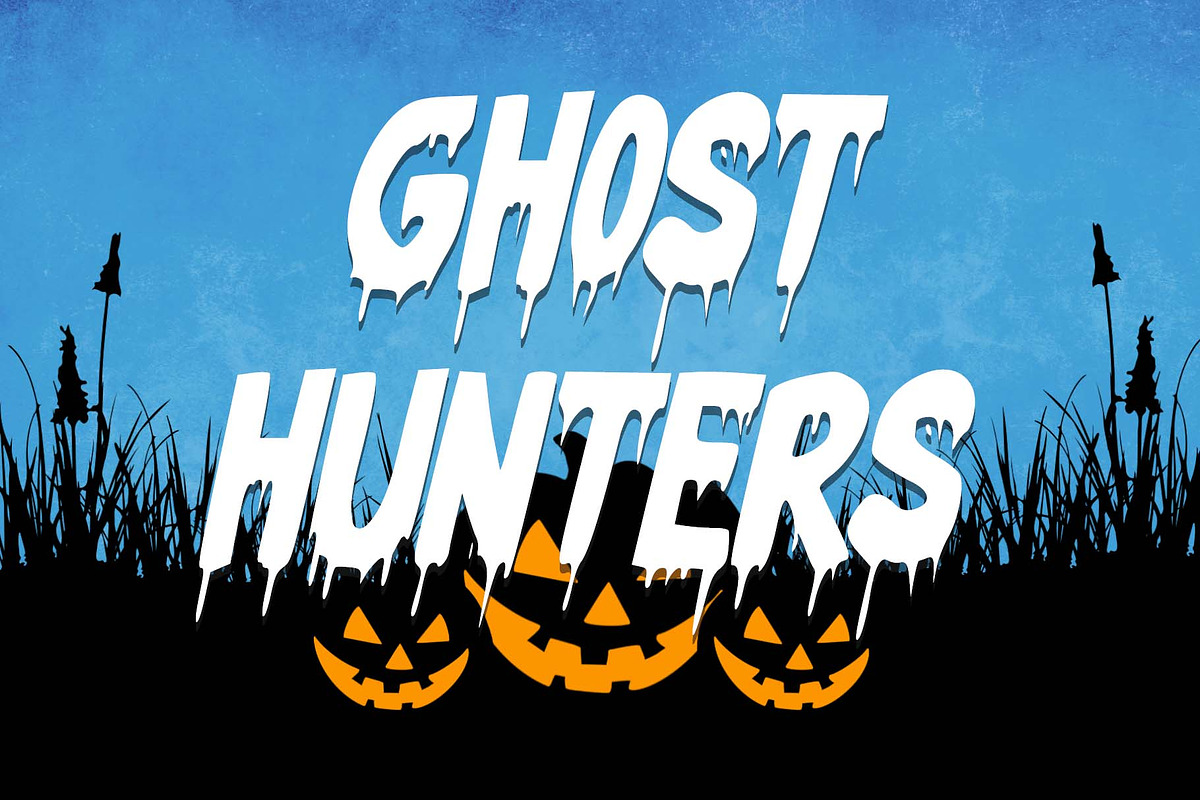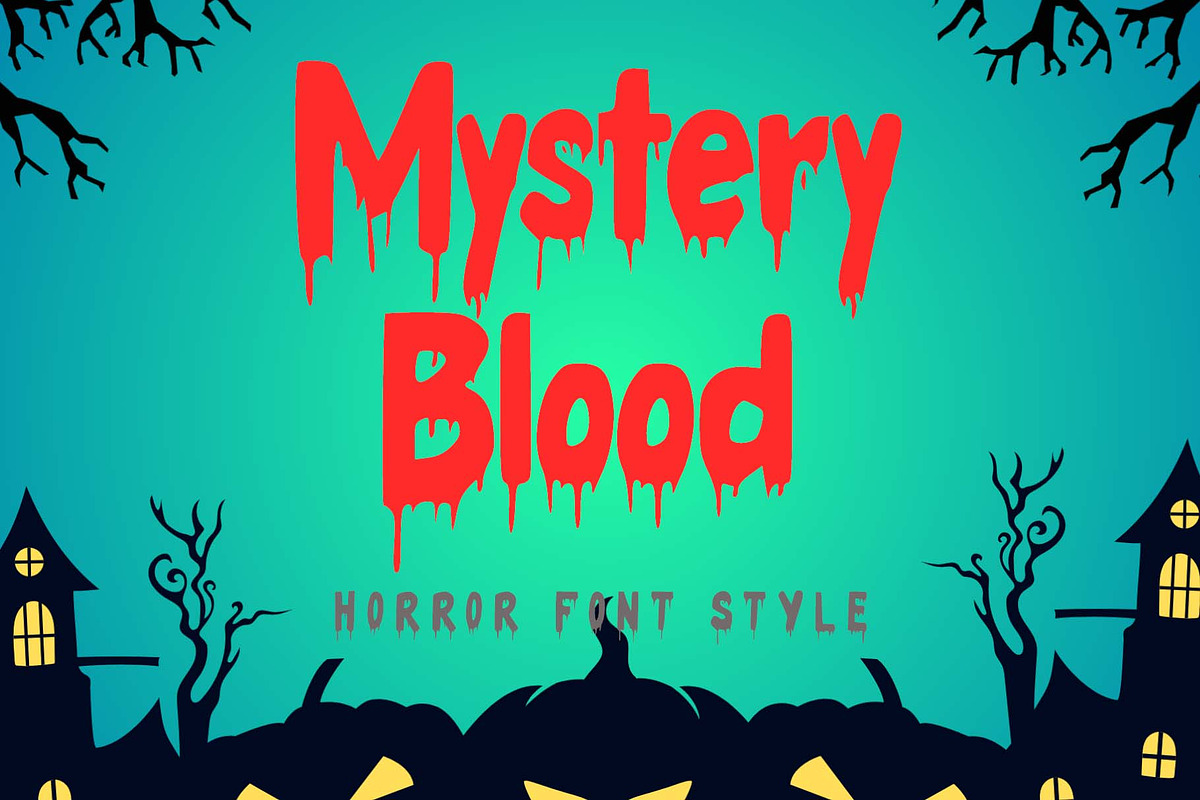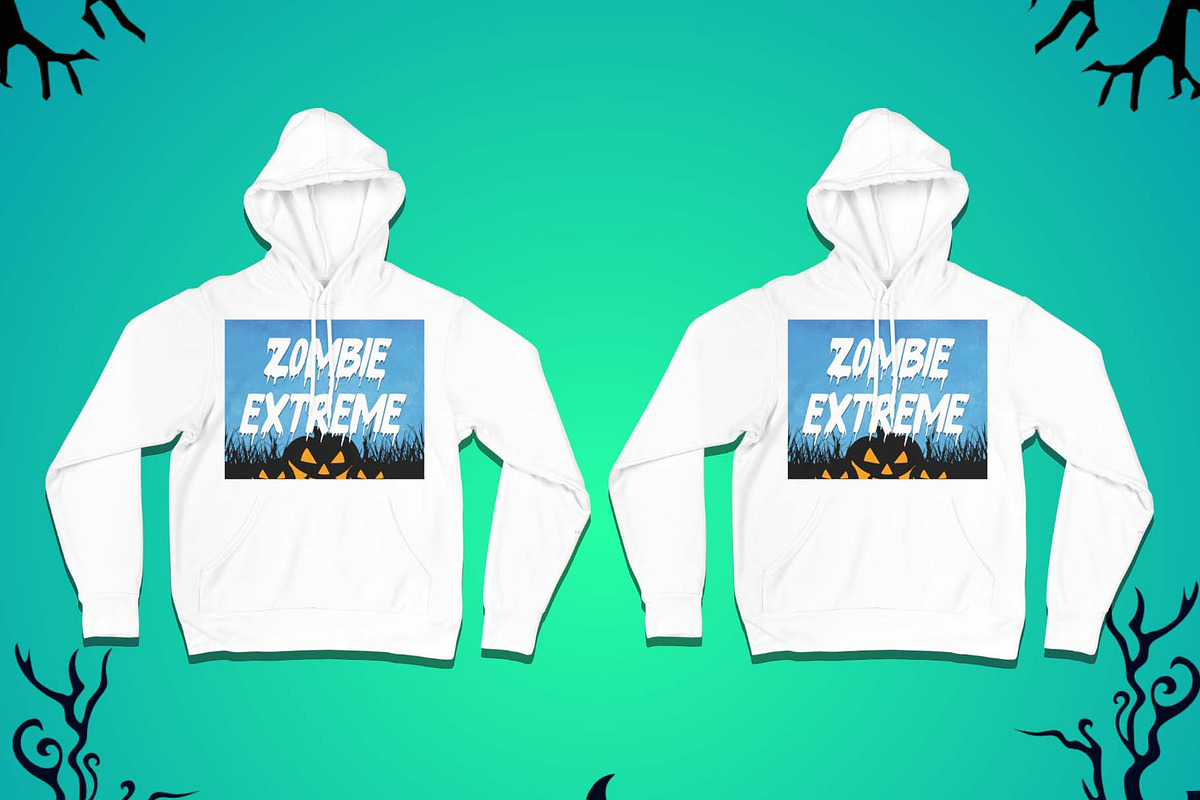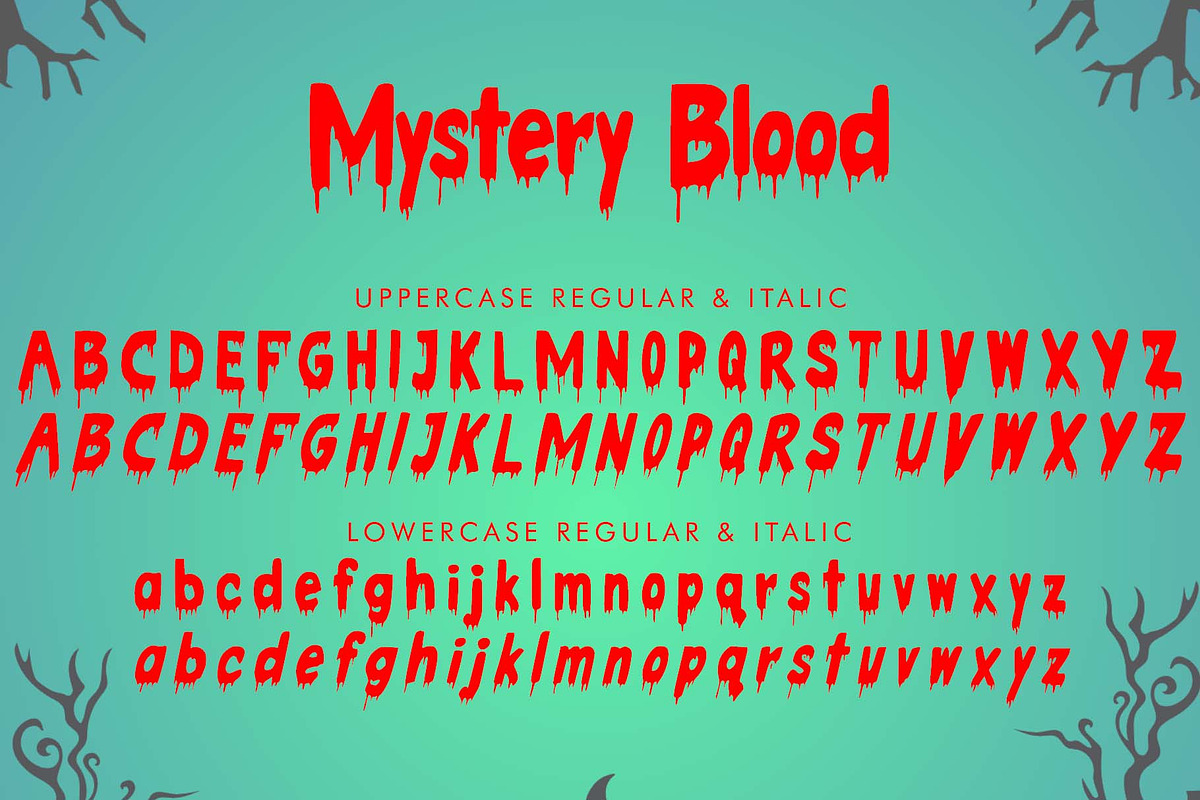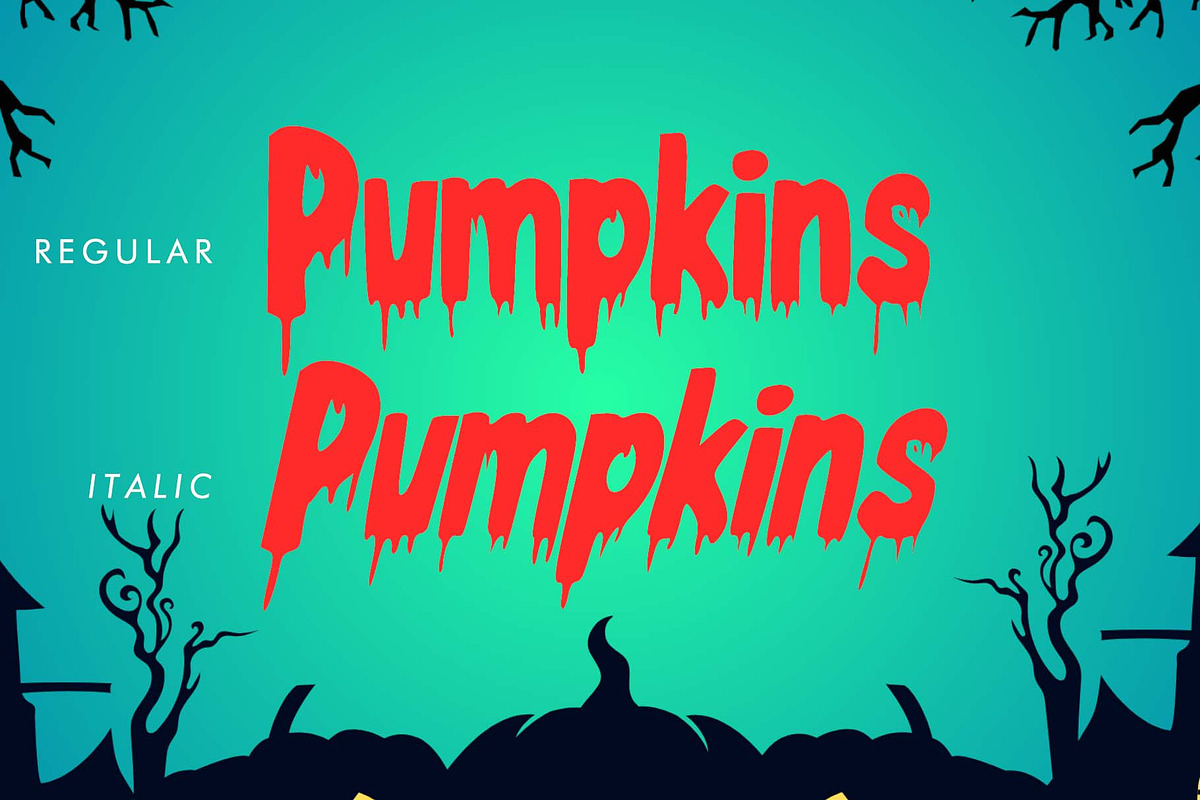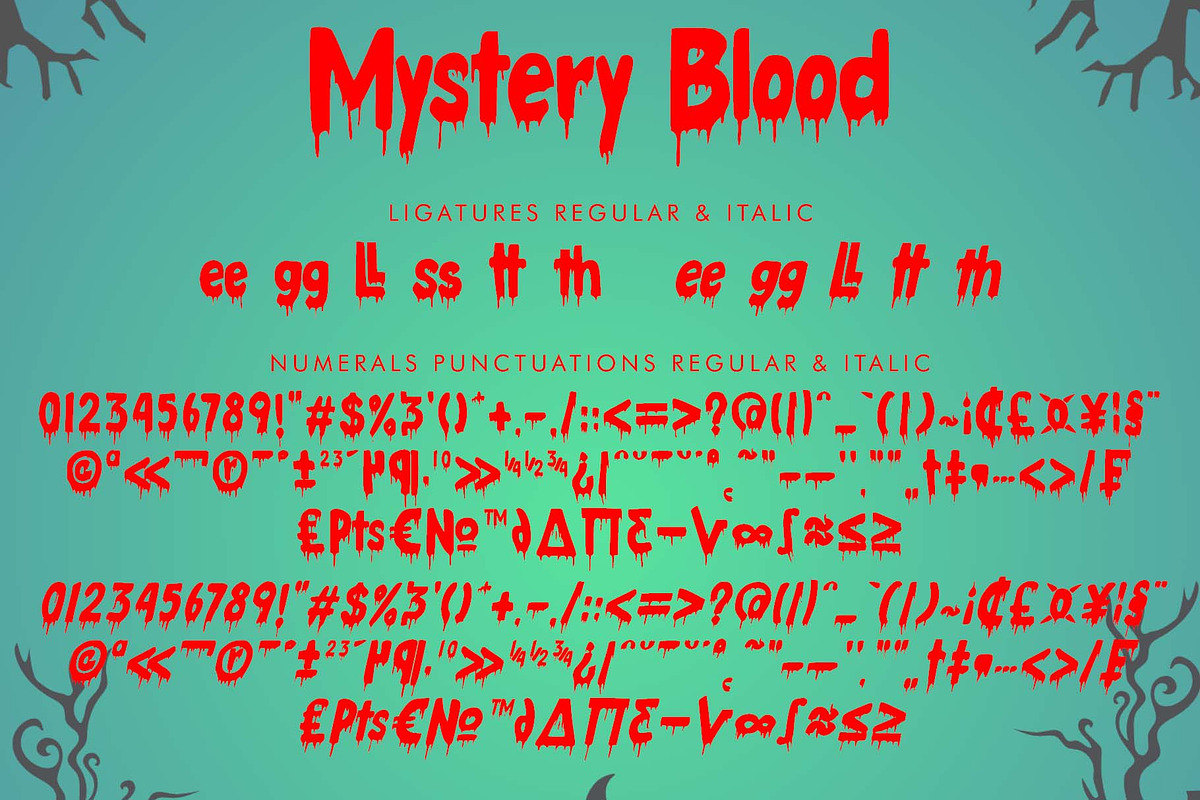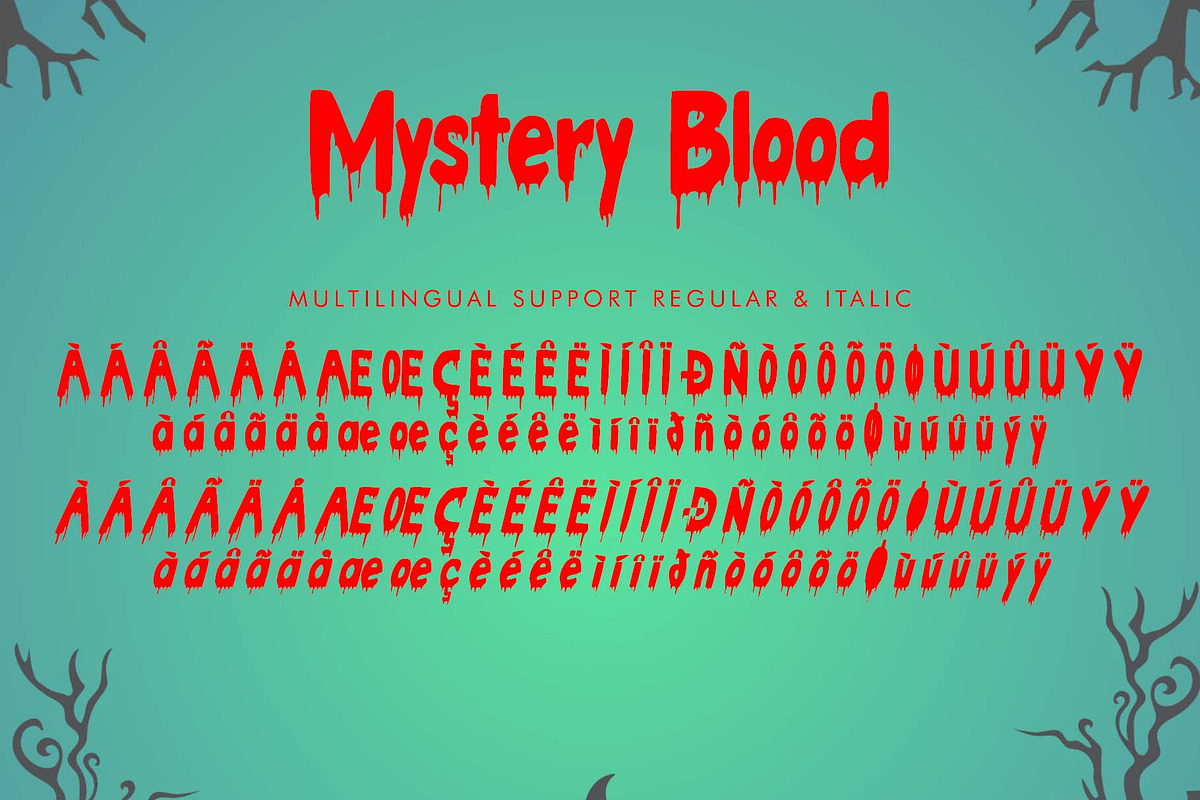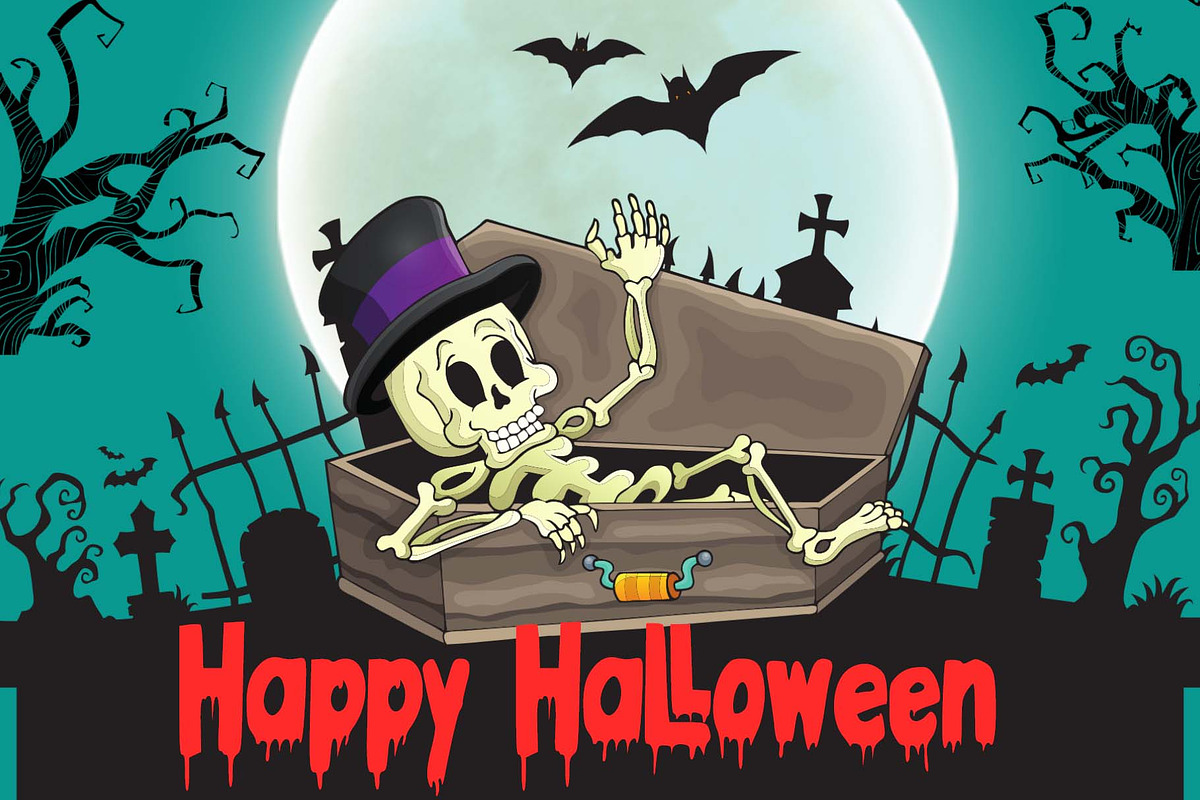
Mystery Blood
"Mystery Blood" is a spooky horror font with blood dripping from every letter. It features uppercase and lowercase letters, ligatures, numbers, punctuation, and multilingual support. Perfect for Halloween, horror movie titles, horror comics, stickers, posters, banners, branding, Christmas, fall, autumn, logos, winter, holidays, mockups, t-shirts, and more.